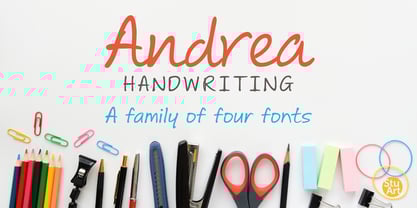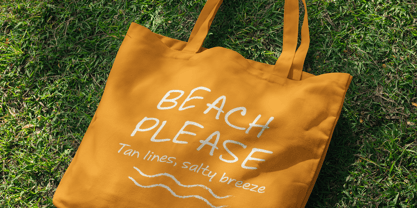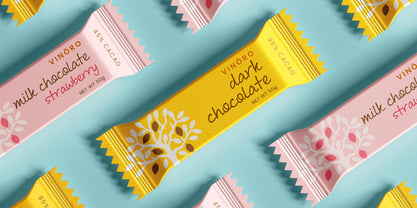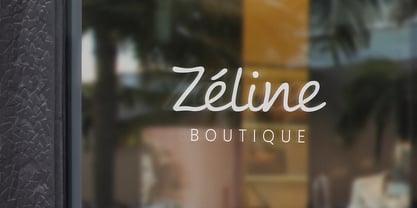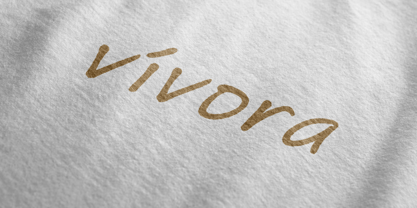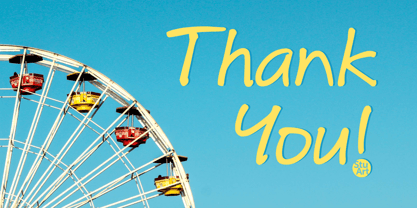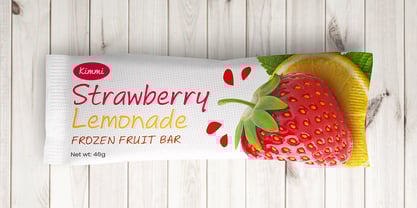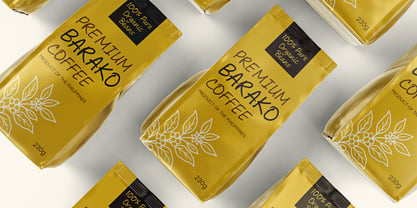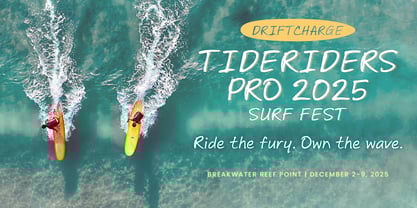
Andrea Handwriting
by StuArt
The Andrea Handwriting Font Family was designed by Andrea Stuart and published by StuArt. Andrea Handwriting contains 4 styles and family package options.
Born out of an insatiable addiction to handwriting fonts, Andrea's Handwriting fonts are simple, readable and easy on the eyes.
Each font is cool, casual and fun all at the same time.
Perfect for printing your personal thoughts be they silly, pensive or absolutely nonsense!
StuArt is the passion project of Andrea Stuart, where pen meets pixel. It began with a simple appreciation for the curves of an ‘s’ and evolved into a lifelong love for the art of letters. She was especially drawn to the ones that felt human—organic, relaxed, and full of personality. When she discovered the tools to create her own, she began turning her signature style into digital type, and StuArt was born—a foundry dedicated to capturing the warmth of a handwritten note without the ink stains. It's personality, digitized.